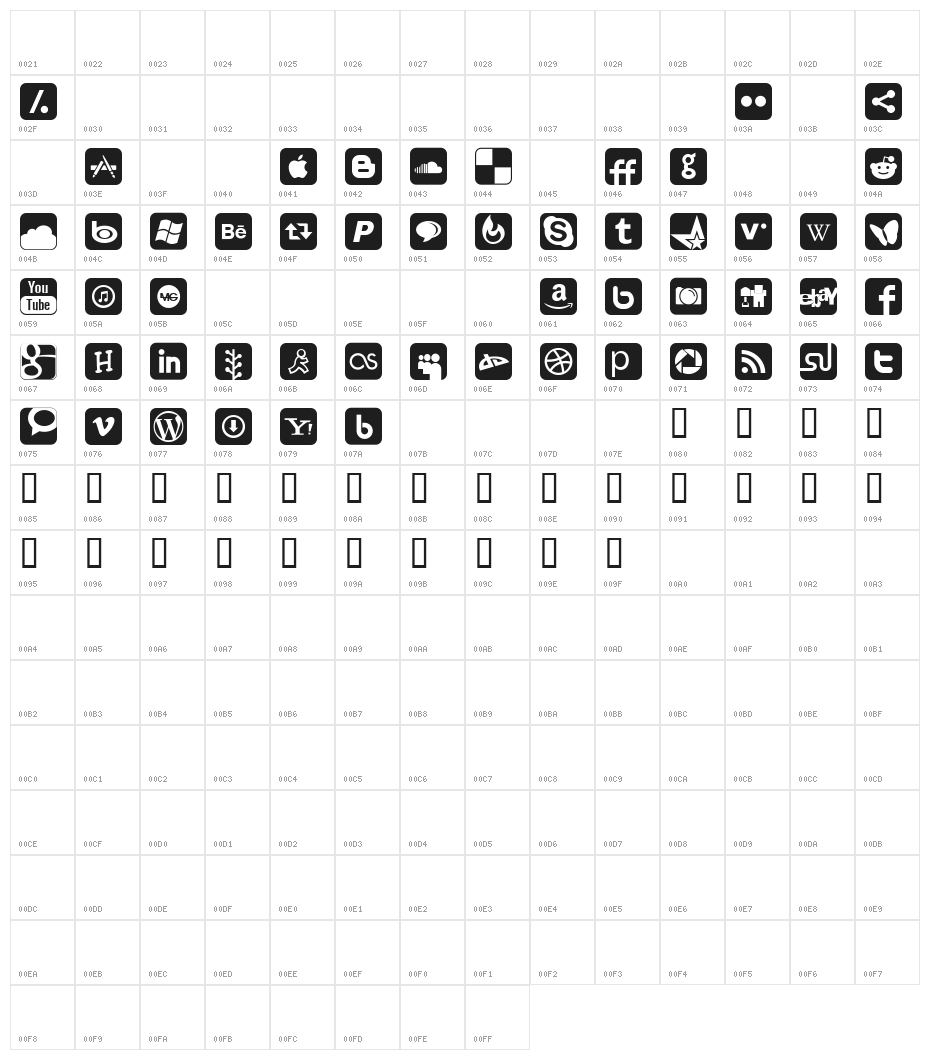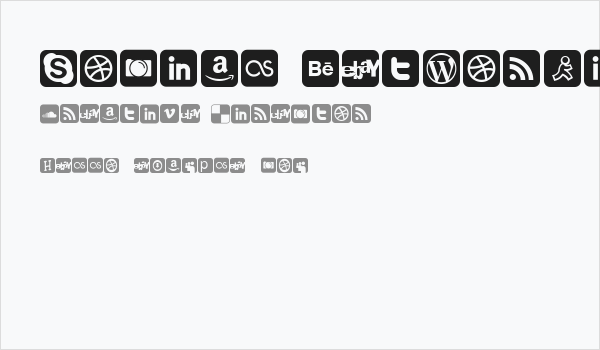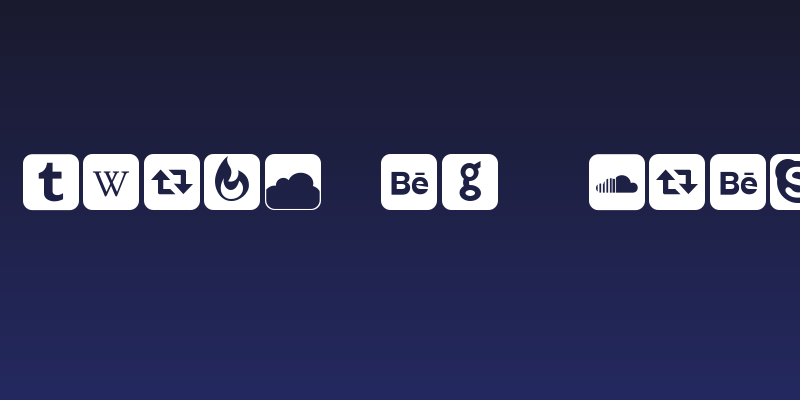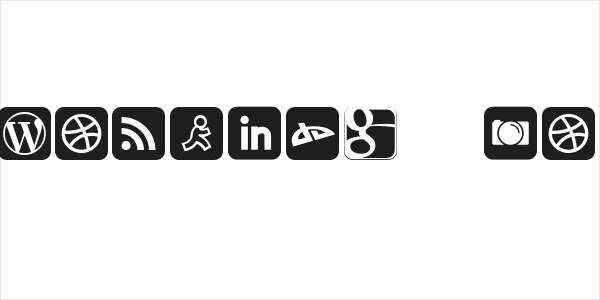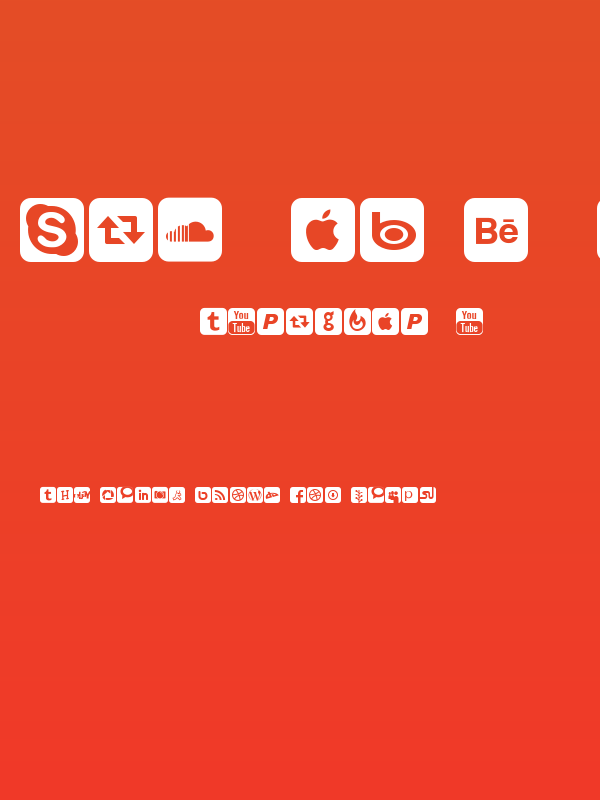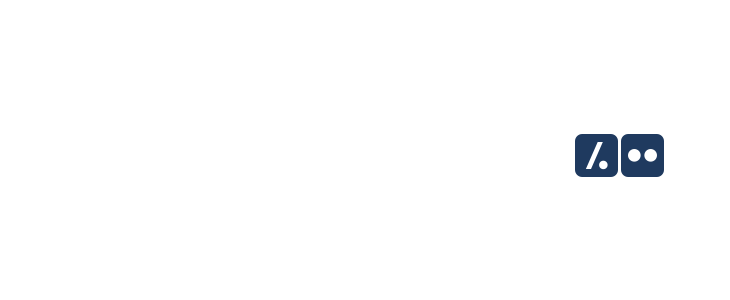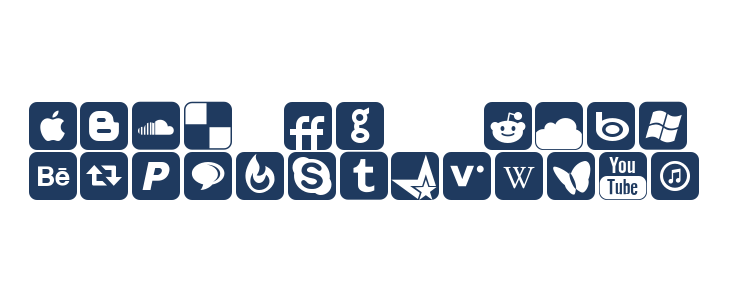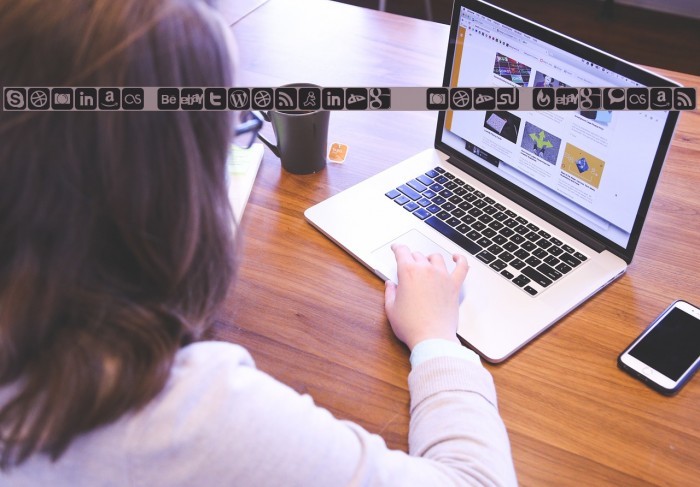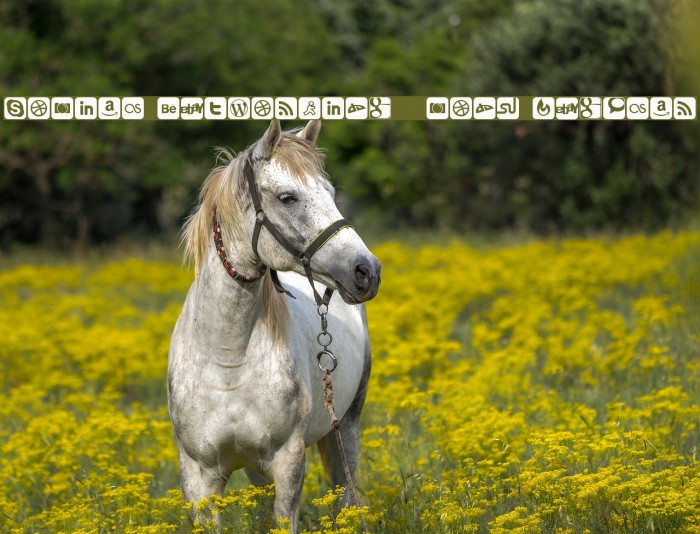
Social Networking Icons Regular Font
Social Networking Icons Regular Description
This set of icons represents a variety of popular social networking and media platforms. Each icon is enclosed within a square, featuring a bold and easily recognizable design. The icons are monochromatic, using a high contrast black and white color scheme that ensures visibility and clarity. The style is modern and minimalistic, focusing on the essential elements of each brand's logo to maintain recognizability while fitting into a cohesive set. This makes them suitable for digital interfaces where space and clarity are crucial.
| Use Case | Logos, Digital Interfaces |
| Proposed Projects | Ideal for website footers, app interfaces, digital marketing materials, and social media management tools. |